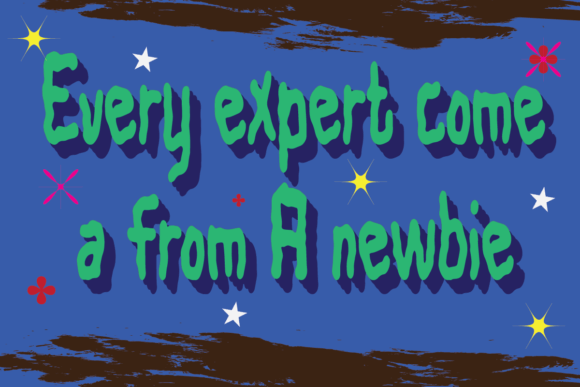
Bubbledee Font: The Whimsical and Playful Typeface for Creative Storytelling
In the world of typography, fonts play a crucial role in conveying the tone and personality of a message. For projects aimed at children, a font that exudes playfulness and joy is essential. Introducing BubbleDee, a whimsical and playful font that dances across the page like bubbles in the wind. With its rounded edges and bubbly demeanor, BubbleDee brings a sense of joy and fun to any text it adorns.
The Inspiration Behind BubbleDee
BubbleDee is a font that was created with the intention of capturing the imagination of young readers. The inspiration behind this font lies in the carefree and playful nature of childhood. The designer aimed to create a typeface that would reflect the sense of wonder and excitement that comes with exploring the world of reading. The result is a font that embodies a sense of lightheartedness and creativity, making it perfect for children’s books, playful posters, or any project aimed at young readers.
The Characteristics of BubbleDee
BubbleDee is a unique font that boasts several distinctive characteristics. Its rounded edges and bubbly demeanor give it a friendly and approachable feel. Each letter is designed to float and bounce, creating a sense of movement and energy. The font’s playful nature makes it perfect for projects that require a sense of fun and imagination. Whether you’re creating a children’s book, a poster, or a website, BubbleDee is sure to bring a smile to your readers’ faces.
The Benefits of Using BubbleDee
Using BubbleDee in your projects offers several benefits. For one, it adds a touch of whimsy and playfulness, making your content more engaging and enjoyable to read. The font’s unique design also helps to create a sense of brand identity, setting your work apart from others. Additionally, BubbleDee is a versatile font that can be used in a variety of contexts, from children’s books to posters, websites, and more.
Perfect for Children’s Books and Playful Posters
BubbleDee is particularly well-suited for children’s books and playful posters. Its playful nature and whimsical design make it perfect for capturing the imagination of young readers. The font’s rounded edges and bubbly demeanor also make it easy to read, even for early readers. Whether you’re creating a picture book, an early reader, or a poster for a children’s event, BubbleDee is an excellent choice.
BubbleDee: A Gateway to Delightful Storytelling and Imagination
BubbleDee is more than just a font; it’s a gateway to a world of delightful storytelling and imagination. By using this font, you’re inviting your readers to enter a world of wonder and excitement. The font’s playful nature and whimsical design help to spark creativity and imagination, making it perfect for projects that aim to inspire young readers. Whether you’re a children’s book author, a teacher, or a designer, BubbleDee is an excellent tool to have in your creative arsenal.
Tips for Using BubbleDee Effectively
To get the most out of BubbleDee, here are a few tips to keep in mind:
- Use BubbleDee for headings and titles to add a touch of whimsy and playfulness.
- Pair BubbleDee with a clean, sans-serif font for body text to create a nice contrast.
- Experiment with different colors and textures to add depth and interest to your design.
- Don’t be afraid to get creative and try out new and innovative uses for the font.
In conclusion, BubbleDee is a whimsical and playful font that is perfect for projects aimed at capturing the imagination of young readers. Its rounded edges and bubbly demeanor make it a joy to read, and its unique design helps to create a sense of brand identity. Whether you’re creating a children’s book, a poster, or a website, BubbleDee is an excellent choice. So why not give it a try and see how it can add a touch of whimsy and playfulness to your next project?
- What is BubbleDee? BubbleDee is a whimsical and playful font designed to capture the imagination of young readers.
- What is BubbleDee suitable for? BubbleDee is perfect for children’s books, playful posters, websites, and any project aimed at young readers.